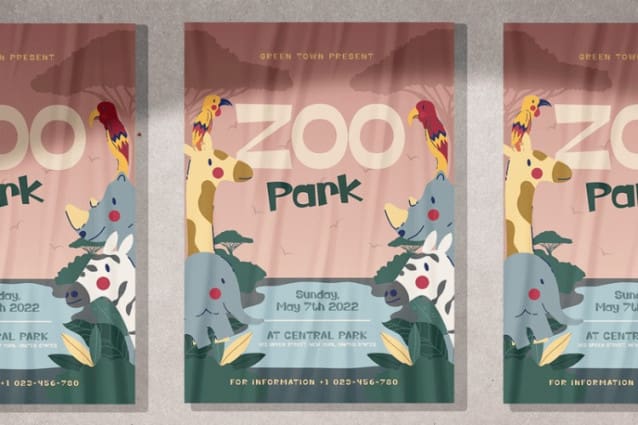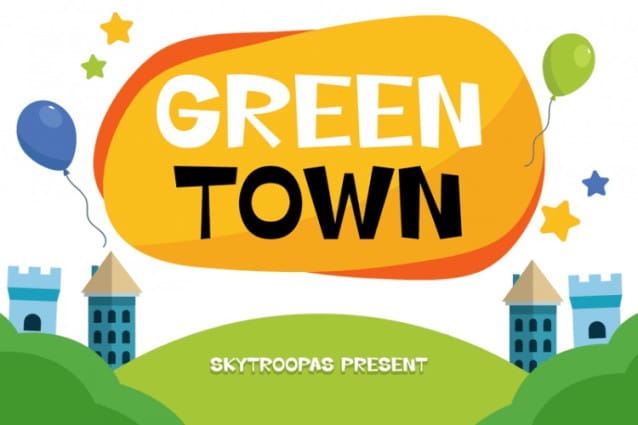
Green Town Font
Green Town Font is a lively and charming typeface that adds playful charm to any project. Inspired by cartoons and children’s illustrations, this font has a friendly, rounded look and a fun, hand-crafted feel. Each letter has a cheerful, bouncy quality that grabs attention without sacrificing readability, making it ideal for both print and digital designs. With its bold, irregular strokes, Cute Font Green Town brings energy and warmth to every word, making it perfect for projects that need a touch of fun and positivity.
The font’s unique mix of uppercase and lowercase letters gives it a lively, animated look, making it especially suitable for younger audiences or lighthearted designs. Its rounded shapes and playful style convey joy and friendliness, and it stays legible, even at smaller sizes. Cute Font Green Town is easy to read and visually engaging, making it a strong choice for everything from posters to product packaging. It brings a delightful, happy vibe to any project, whether it’s large-scale displays or smaller details like labels.